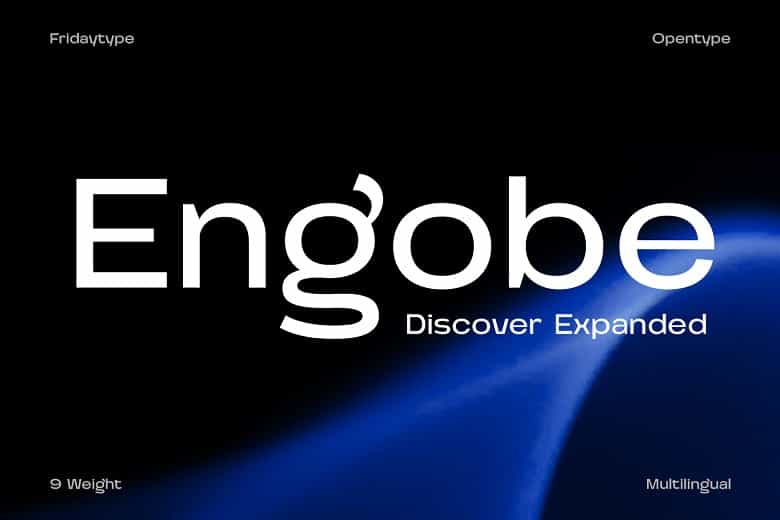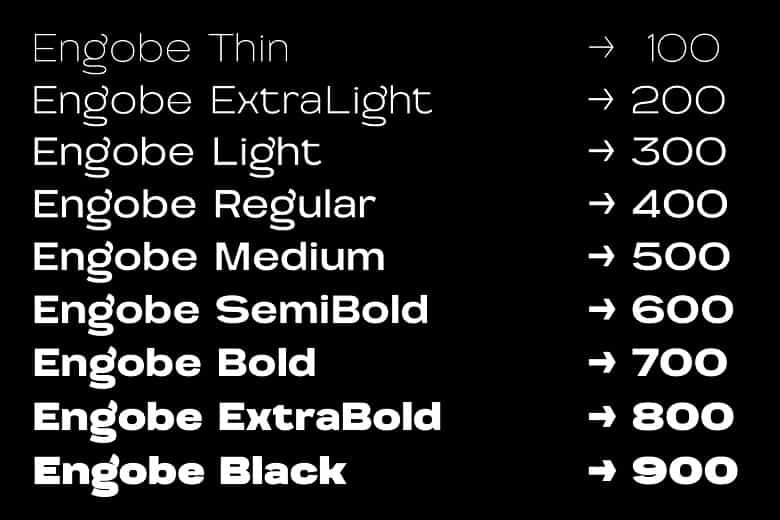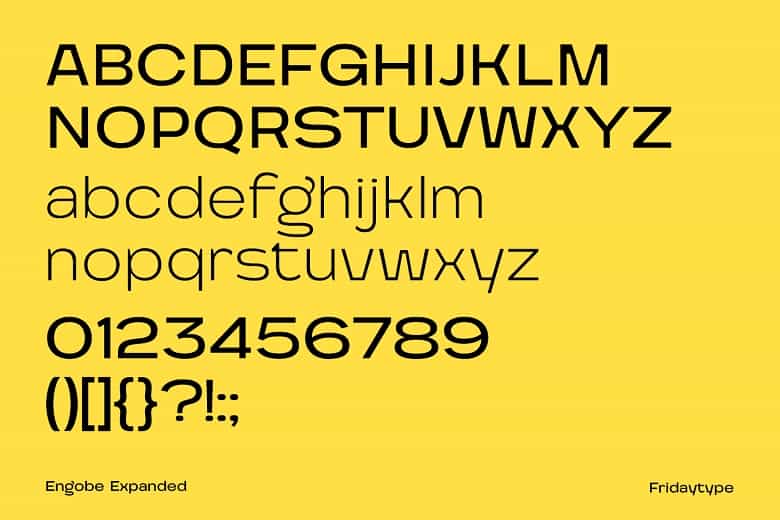
Engobe is an extensive variable sans serif font that can give a contemporary touch to your projects and designs. You can easily change the weight and the width to meet any requirements from the heavy headlines to the fine print. Perfect for creating logos, branding, posters or web design and more Engobe has its unique aesthetics.